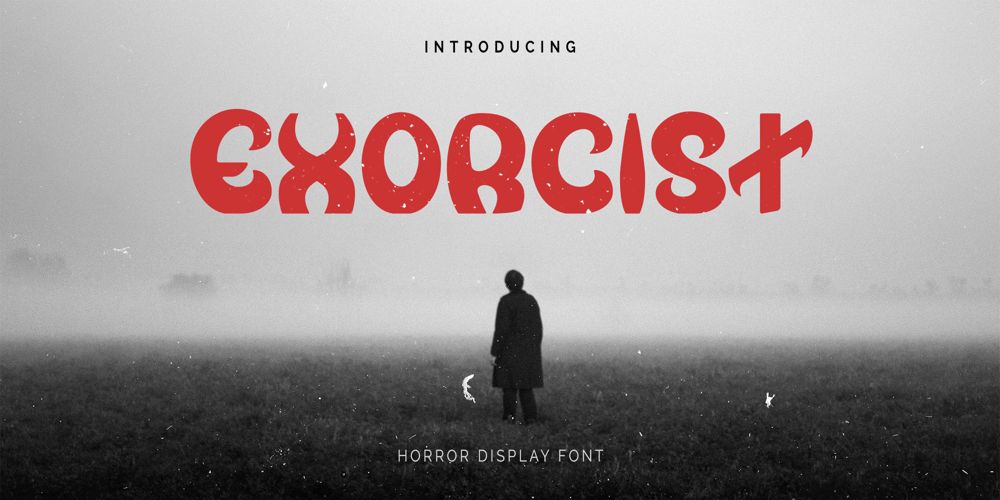
Exorcist
Exorcist font
Exorcist Font Family was designed by RoninDesign and published by Ronin Design. Exorcist contains 1 styles and family package options. Introducing Exorcist, a font that channels the scary and mysterious. Exorcist offers a unique blend of elegance and menace, perfect for setting a foreboding tone in your design. Its alternates offer a customization, allowing you to create a truly unique and terrifying look that will leave a lasting impression on your audience.